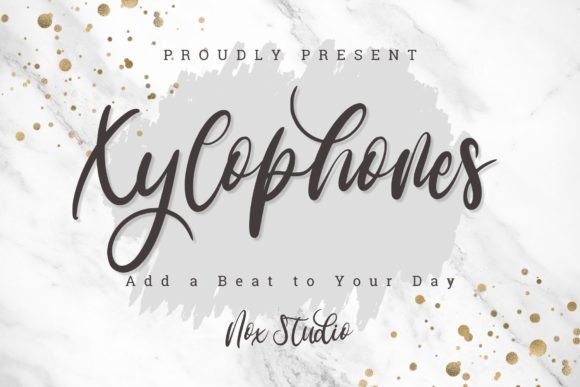
Xylophones Font: The Perfect Handwritten Typeface for Valentine’s Day Projects
Are you looking for a font that captures the essence of romance and love? Look no further than Xylophones Font, a captivating handwritten typeface that’s perfect for Valentine’s Day projects. With its unique and timeless charm, Xylophones Font is ideal for enhancing logos, branding, inspirational quotes, and more.
What is Xylophones Font?
Xylophones Font is a beautiful handwritten typeface that’s designed to evoke feelings of love and romance. Its elegant and flowing script makes it perfect for a variety of design projects, from romantic logos and branding to inspirational quotes and social media graphics.
With its unique and distinctive style, Xylophones Font is sure to stand out from the crowd. Whether you’re looking to create a romantic atmosphere or simply want to add a touch of elegance to your designs, Xylophones Font is the perfect choice.
Features of Xylophones Font
So, what makes Xylophones Font so special? Here are just a few of its key features:
- Handwritten script: Xylophones Font features a beautiful handwritten script that’s perfect for creating romantic and elegant designs.
- Unique and timeless charm: With its distinctive style, Xylophones Font has a unique and timeless charm that’s sure to capture the hearts of your audience.
- Elegant and flowing: The font’s elegant and flowing script makes it perfect for a variety of design projects, from logos and branding to inspirational quotes and social media graphics.
- Perfect for Valentine’s Day projects: With its romantic and loving vibe, Xylophones Font is the perfect choice for Valentine’s Day projects.
Why Choose Xylophones Font?
So, why should you choose Xylophones Font for your design projects? Here are just a few reasons:
- Romantic and elegant: Xylophones Font is perfect for creating romantic and elegant designs that capture the essence of love and Valentine’s Day.
- Unique and distinctive: With its unique and distinctive style, Xylophones Font is sure to stand out from the crowd and grab the attention of your audience.
- Versatile: Xylophones Font is perfect for a variety of design projects, from logos and branding to inspirational quotes and social media graphics.
Tips and Tricks for Using Xylophones Font
Here are a few tips and tricks for using Xylophones Font:
- Use it for headlines and titles: Xylophones Font is perfect for headlines and titles, where its elegant and flowing script can really shine.
- Pair it with other fonts: Xylophones Font can be paired with other fonts to create a unique and interesting design.
- Experiment with colors and textures: Experiment with different colors and textures to really make your design pop.
Xylophones Font in Action
So, what does Xylophones Font look like in action? Here are a few examples of how it can be used in different design projects:
- Logos and branding: Xylophones Font is perfect for creating romantic and elegant logos and branding.
- Inspirational quotes: Xylophones Font is great for creating inspirational quotes and social media graphics.
- Valentine’s Day cards and gifts: Xylophones Font is perfect for creating romantic Valentine’s Day cards and gifts.
In conclusion, Xylophones Font is a beautiful handwritten typeface that’s perfect for capturing the essence of romance and love. With its unique and timeless charm, Xylophones Font is ideal for enhancing logos, branding, inspirational quotes, and more.
- What is Xylophones Font? Xylophones Font is a beautiful handwritten typeface that’s designed to evoke feelings of love and romance.